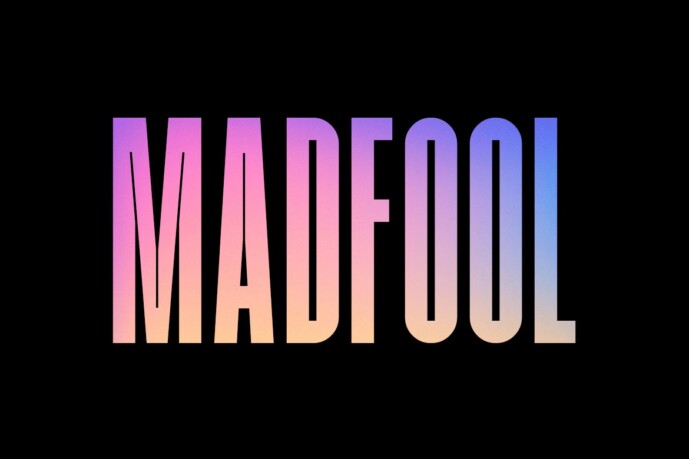
WS Madfool Font
If you are looking for letters with attitude, Madfool is the perfect fit. It’s a memorable, strong and elegant typeface. Madfool is a modern clean Display font. With bold stroke, fun character. To give you an extra creative work. Madfool font support multilingual more than 100+ language. This font is good for logo design, Social media, Movie Titles, Books Titles, a short text even a long text letter and good for your secondary text font with sans or serif. Make a stunning work with Madfool font.